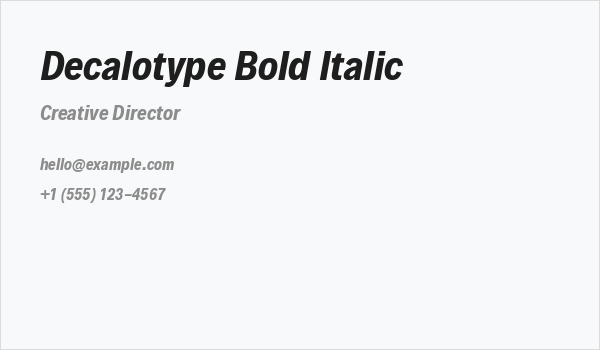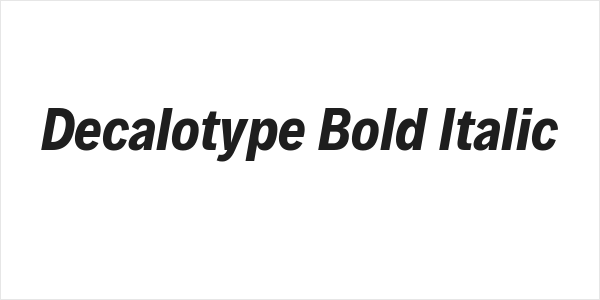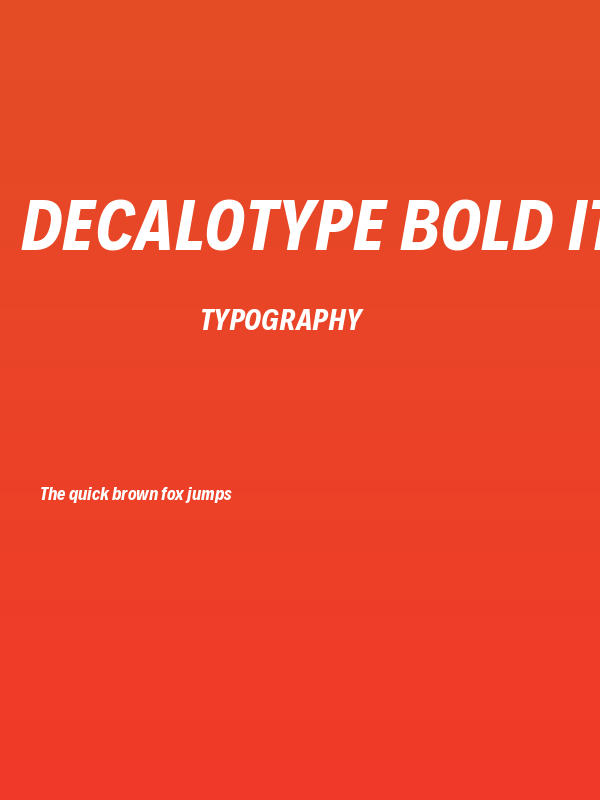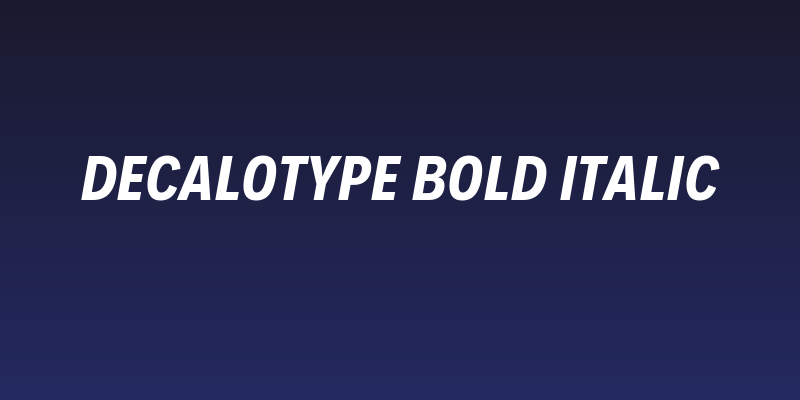
Decalotype Bold Italic Font
Decalotype Bold Italic Description
This font exhibits a bold and italicized style, characterized by its strong presence and dynamic slant. The uppercase and lowercase letters are well-defined, with a consistent stroke width that enhances readability. The numerals are clear and distinct, making them suitable for various applications. Special characters are included, maintaining the font's cohesive appearance. The overall design is modern and versatile, making it ideal for projects that require a bold statement.
Use CaseHeadlines, Logos, Branding
Proposed ProjectsIdeal for branding, advertising, headlines, and any design that requires a strong visual impact.